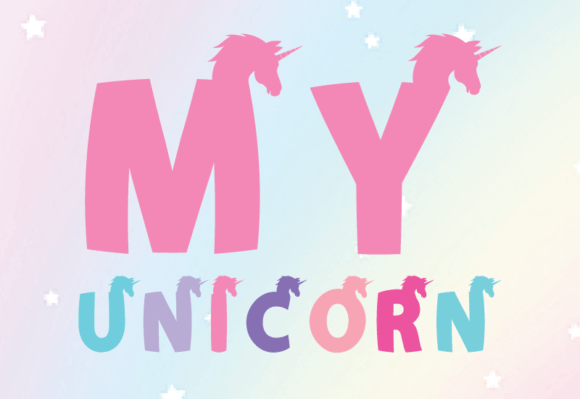
Journey into the realm of enchantment, where words dance with whimsy and imagination takes flight. My Unicorn Font, a creation of GraphicsNinja, is a decorative font that will sprinkle magic onto your creative projects. Step into a world where unicorns prance amidst sparkling stars, and rainbows paint the canvas of your imagination.
My Unicorn Font is not just a collection of letters; it's a gateway to a universe of limitless possibilities. Each character is meticulously crafted to capture the essence of joy and wonder, ready to transform your designs into captivating masterpieces. Its playful curves and enchanting swashes will add a touch of enchantment to any project, whether it's a whimsical birthday card, an eye-catching social media post, or an enchanting children's book.
Dive into a kaleidoscope of creativity as you explore the endless applications of My Unicorn Font. Let its magical charm elevate your branding, packaging, and web design projects. Create enchanting invitations that spark curiosity and excitement, captivating logos that leave a lasting impression, and website designs that transport visitors to a realm of pure imagination.
With My Unicorn Font as your creative companion, you'll discover a treasure trove of opportunities to captivate and enchant your audience. Its versatility knows no bounds, allowing you to weave magic into every aspect of your visual communication. Unleash your imagination and embark on a creative journey like no other, where dreams take shape and enchantments come alive.
Welcome to the world of My Unicorn Font, where creativity knows no limits and where every project becomes a magical adventure. Embrace the wonder and let your imagination soar to new heights.